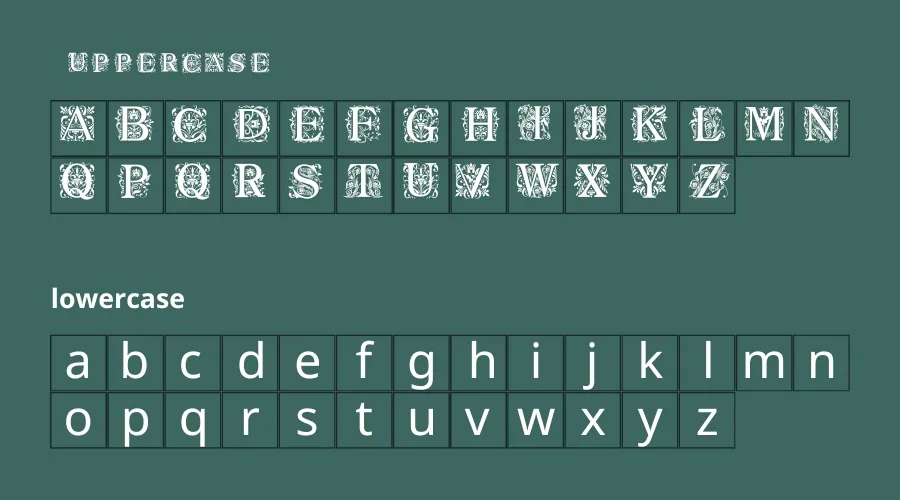
Regal Font
About Regal Font
The regal font is an innovative typeface that was designed by Fontographer and belongs to the decorative font family. This font is perfect for any type of design project or creative work because it provides a unique look to your design. You may easily get it free from here and utilized it for various kinds of designs, and methods.
This typeface is released in 1999 and has more than 27 glyphs available. It has various types of alphabet characters such as small letters, capital letters, numerals, digits, symbols, and many more. Due to its soft look and neatness and cleanliness, this typeface is increasing its popularity in the whole world day by day.
The Regal Font has a stylish and modern texture look that is perfect for different designs, and projects. It is the perfect choice for creating a T-shirt design, website design, logo design, and many more. It’s also useful for designing Cards like invitation cards wedding cards, and that type of other projects.
Where can we use Regal Font?
You may utilize this font for creating a T-shirt design, website design, logo design, and many more. It’s also useful for designing Cards like invitation cards wedding cards, and that type of other projects.
What Font are alternatives to Regal Font?
There are many font families that look similar to the Regal font but some of them are closest to this such as Adorn font and Glider Girls Font.